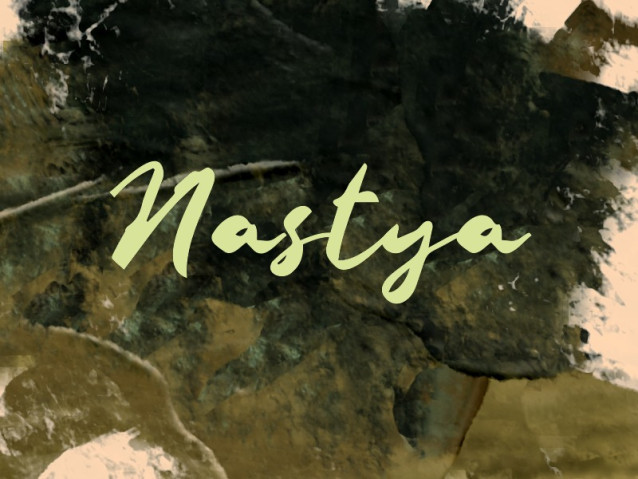
Nastya Font
Nastya Font is a lively handwritten script font with smooth strokes and a natural flow. Its playful yet elegant style adds a warm, personal touch to designs, making it perfect for logos, posters, social media, branding, and creative projects that seek a friendly and expressive feel.